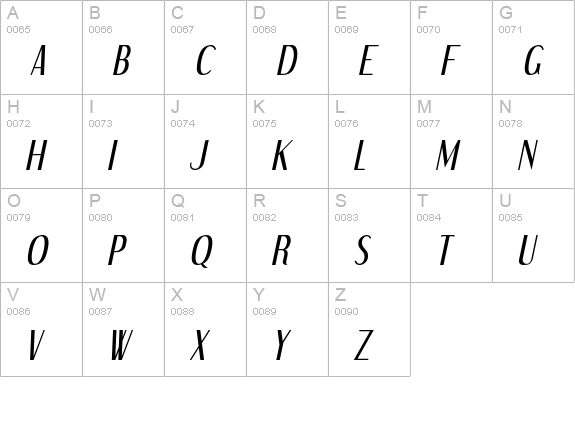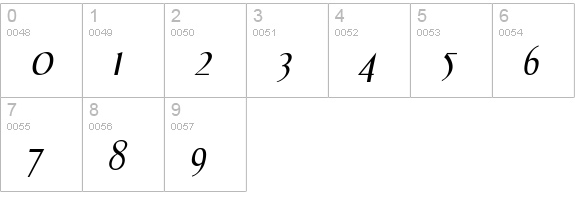
Dream Orphans Italic Font Details
Dream Orphans Italic is a distinctive, italic variant in the Dream typeface family \xE2\x80\x94 well suited to design and typography projects.
Dream Orphans Italic is a beautifully designed font that exudes elegance and sophistication. Its stylish curves and unique letterforms make it perfect for adding a touch of class to any project. The italic style adds a sense of movement and dynamism, making text appear more engaging and visually appealing. What sets Dream Orphans Italic apart is that it is freely available to download at FontsMarket.com. This means you can easily access this high-quality font without any cost, making it a valuable addition to your font collection. Whether you're working on a creative project, branding materials, or any other design endeavor, Dream Orphans Italic is sure to elevate your work with its timeless charm and versatility. Download it today and unleash your creativity with this stunning font.